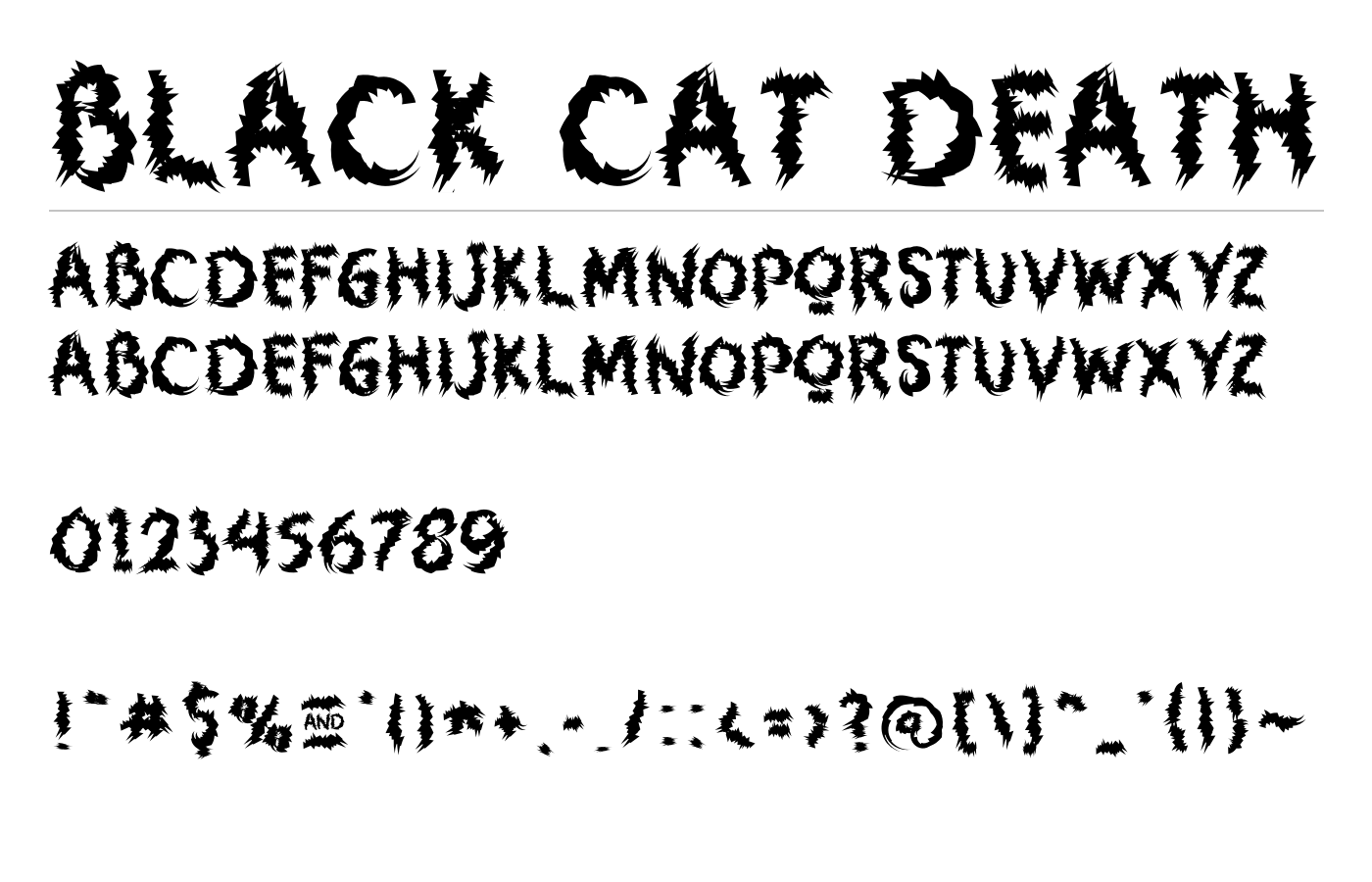
Black Cat Death is a bold, decorative sans serif font featuring jagged, irregular edges that give it a spooky, edgy vibe perfect for Halloween or horror-themed designs. Its uppercase-only style, high contrast in stroke texture, and rough, torn appearance create a dramatic and intense personality, making it ideal for eye-catching headlines, posters, or branding that aims to evoke mystery and fright. This font works best when used sparingly to add a unique, eerie touch to creative projects.
Black Cat Death Font
About Black Cat Death Font
| Font family | Black Cat Death Font |
| Designer | Nur Edi Prayitno |